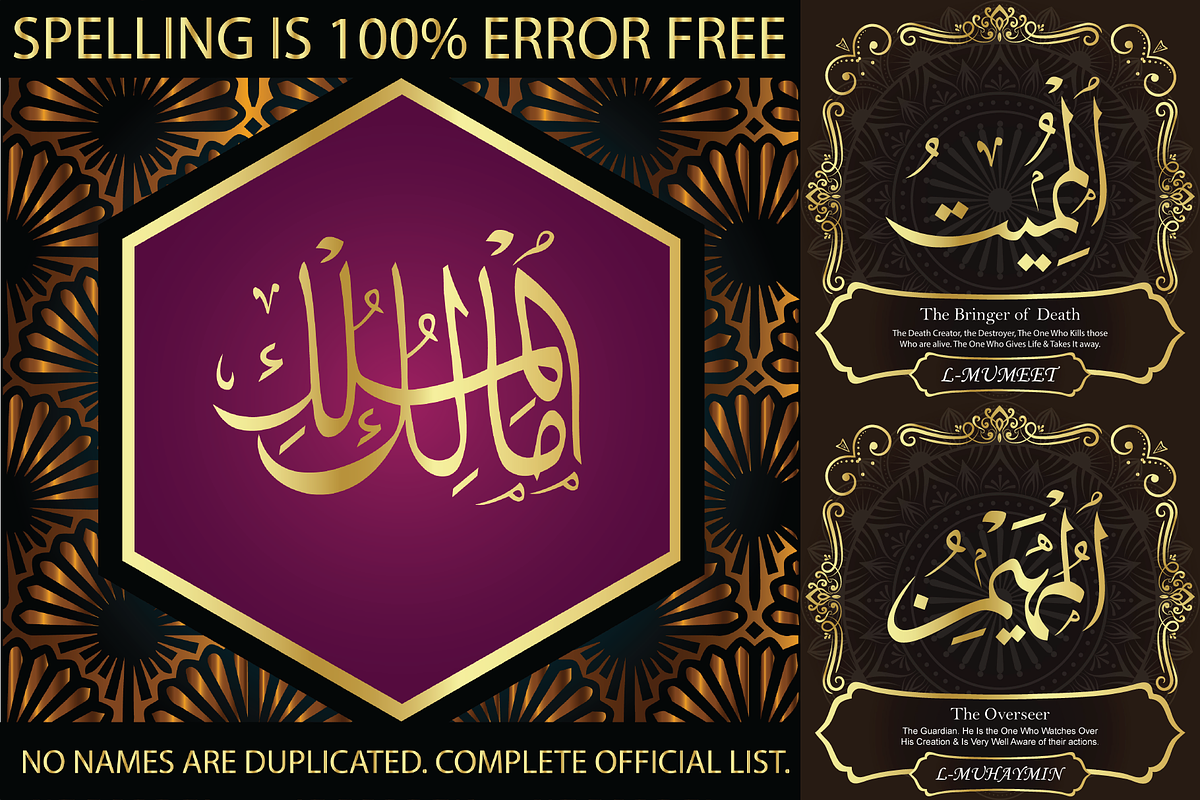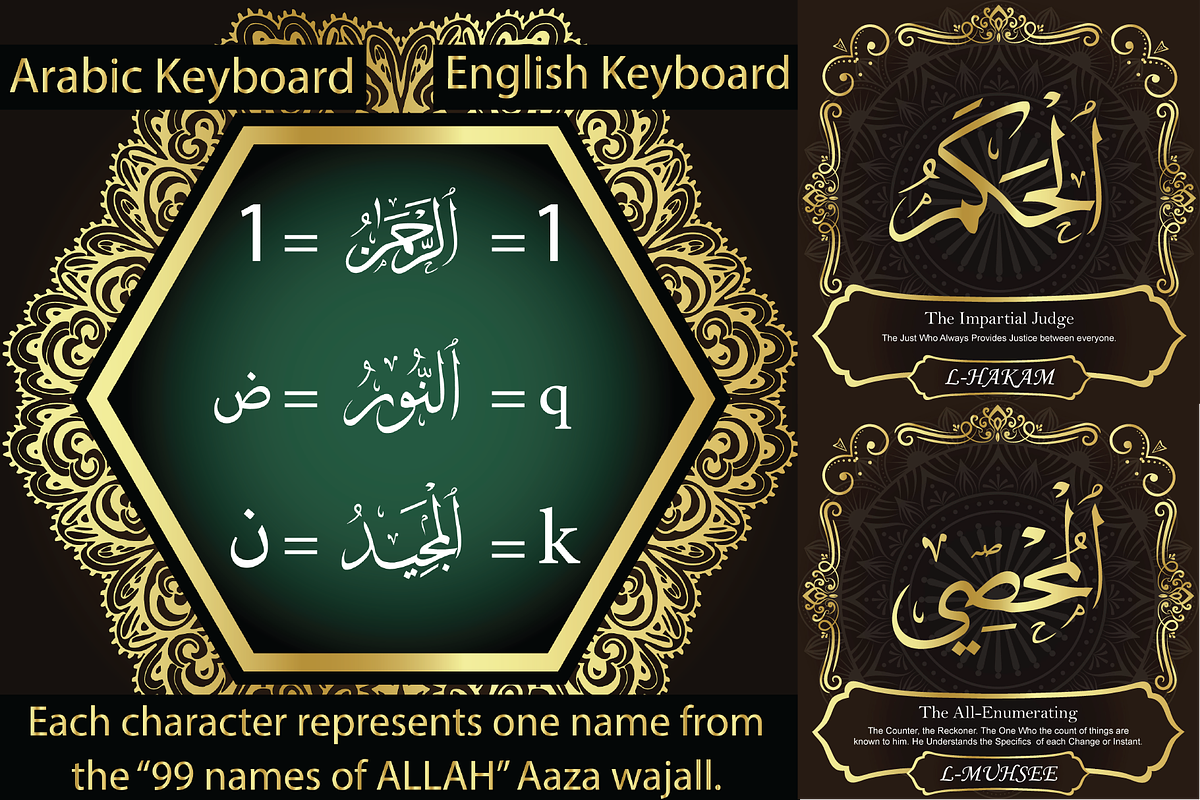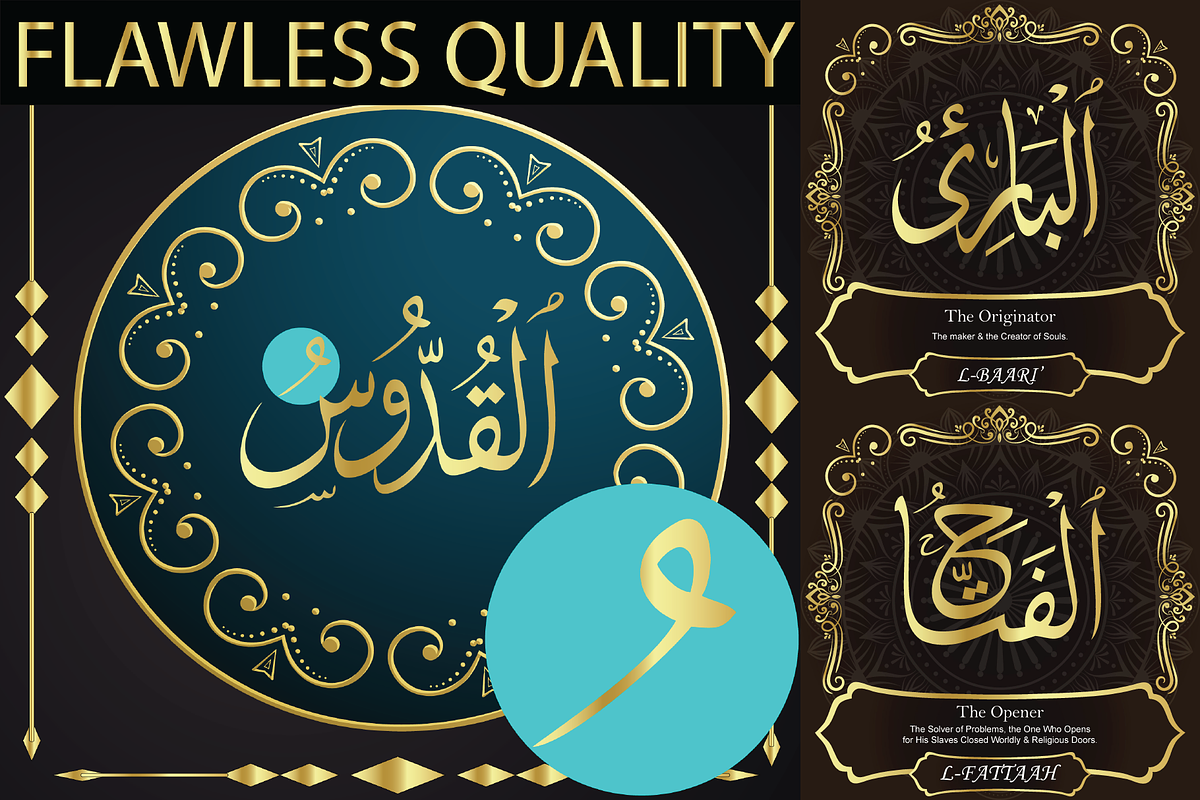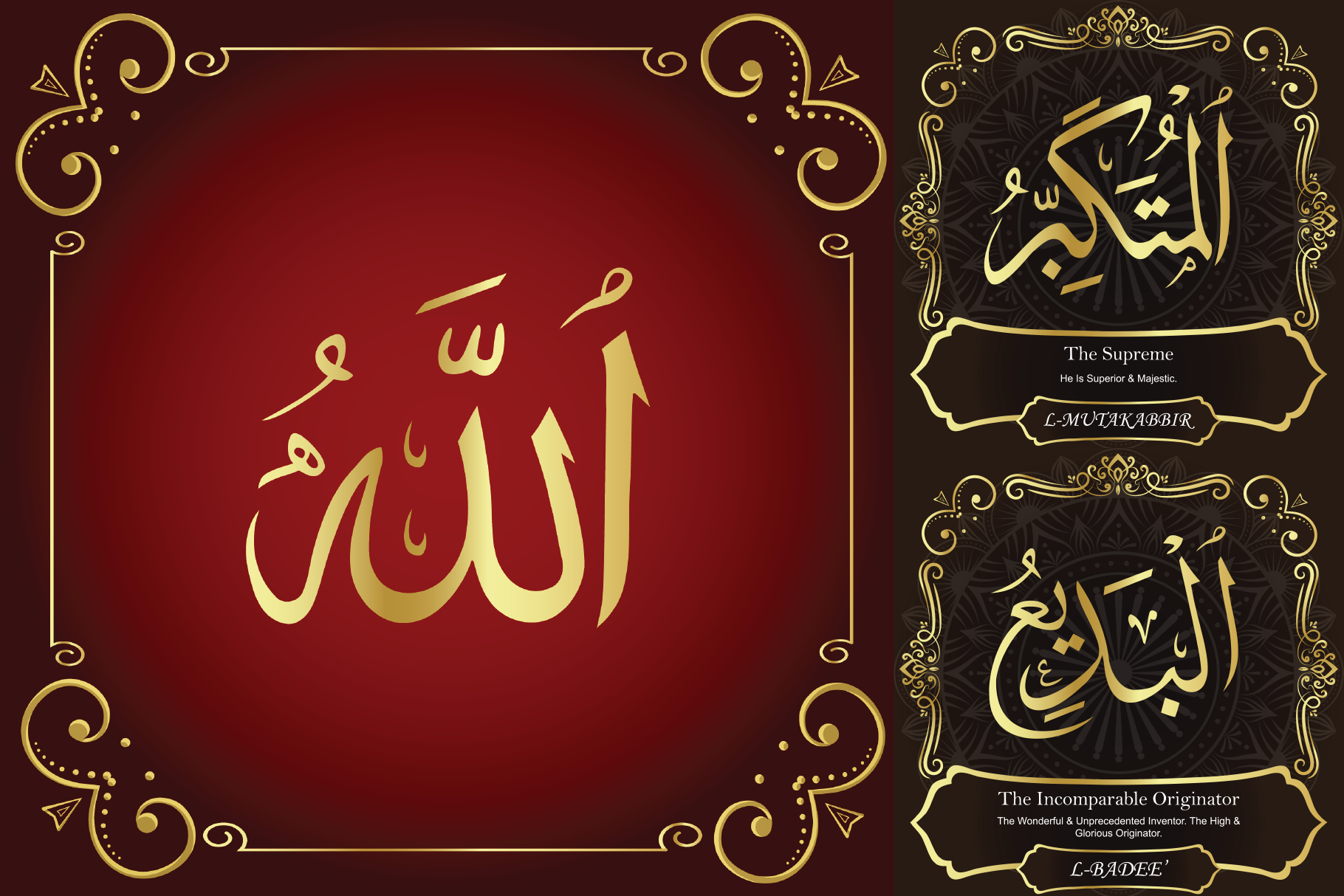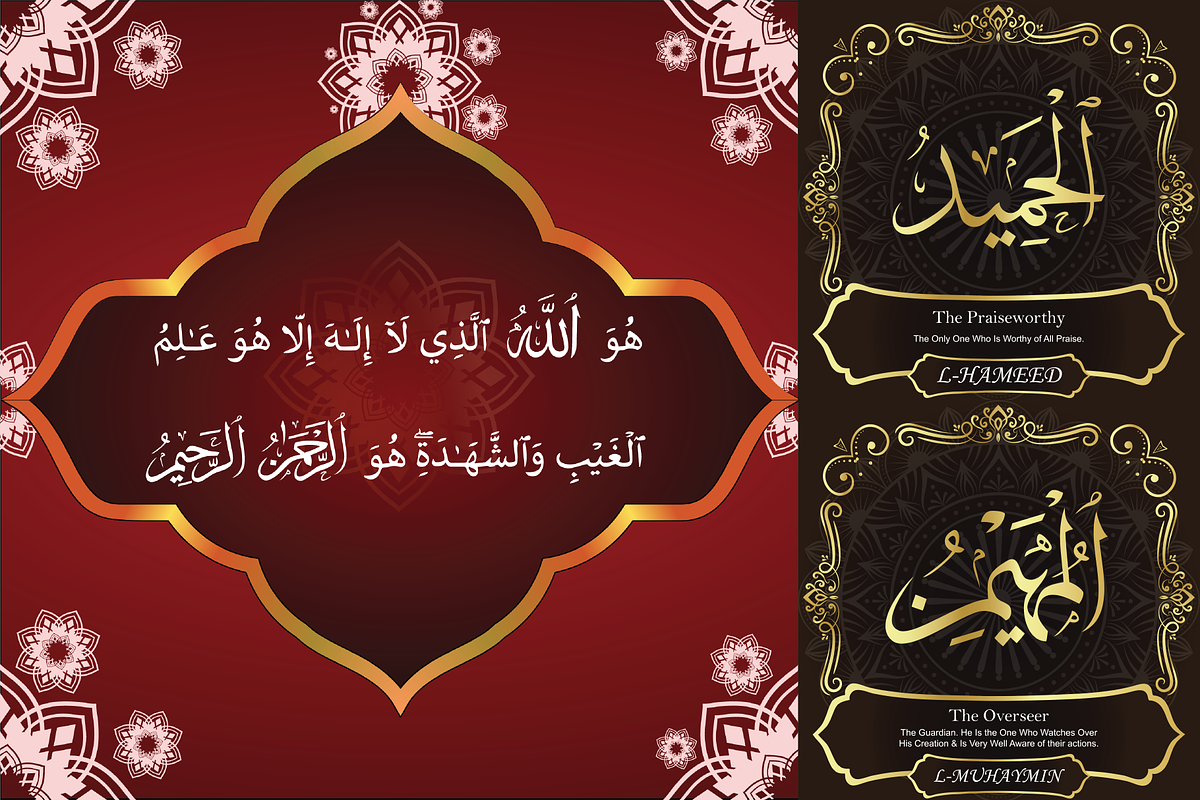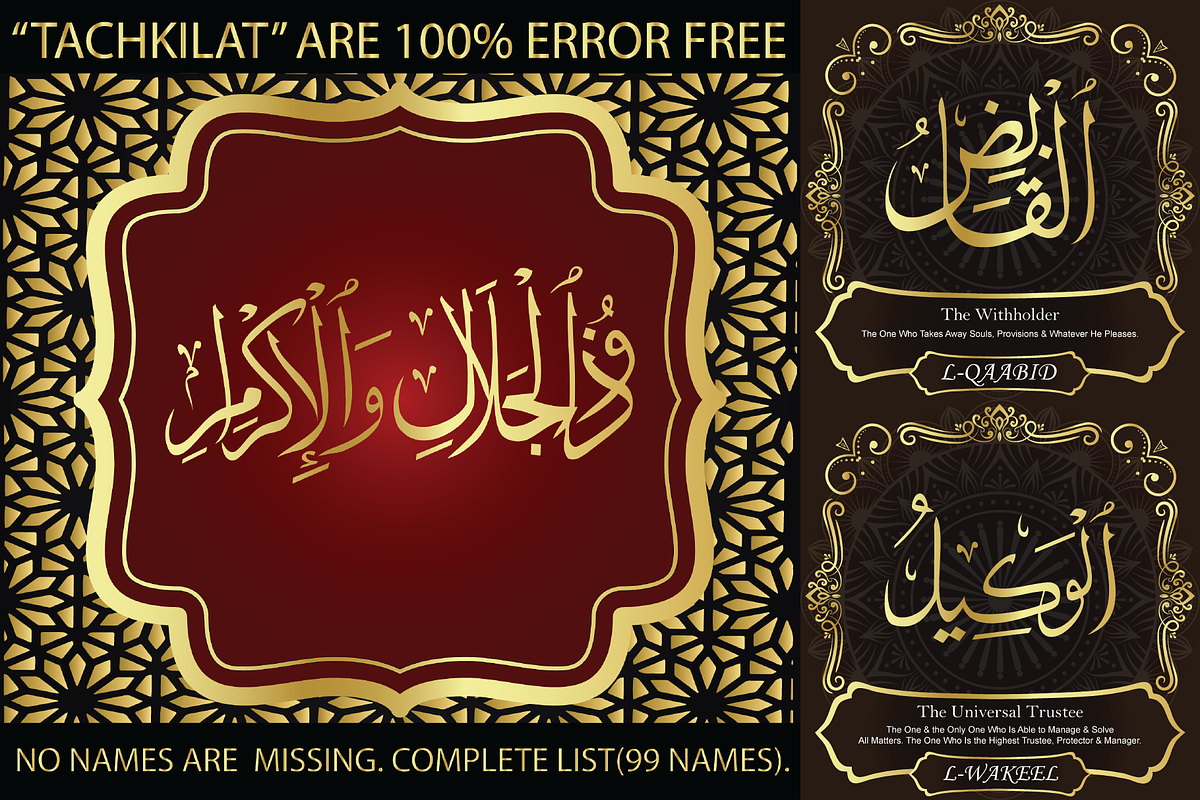
99 Names of ALLAH "Minimal" Font
We have transformed the “99 names of ALLAH” into a font. That means each key on your keyboard represents 1 of the 99 names of ALLAH Aaza Wajal. The fonts work with both the English and Arabic Keyboards.
We call this Calligraphy "Minimal" because of the minimal decoration and simplistic design. The first "Alef" has a "hamzit wasel", this indicates that the name can be pronounced both as "AR-RAHMAAN" or "R-RAHMAN" (in the zip file you will find a pdf file explaining the differences in the "harakat", pronunciation and spelling according to the Holy Quran). This calligraphy is not only minimal in its design but easy to read, very few letters overlaps and the decorative symbols are at minimum. In this Quranic format the name "ALLAH" doesn't have a small alef on the "chaddeh". And even though we haven't included a small "alef" as part of the decorative letters, we decided to add one to the best of names "ALLAH". This is not an error, nor it is a mistake. We consider the small “alef” on the name "ALLAH" to be part of the decorative design just like the small letters & symbols you see in the names. And to indicate that it is part of the design you will notice the "alef" on "AR-RAHMAAN" is slightly bigger than on the name "ALLAH". Decorative letters used in this calligraphy: "Mim, Aain, Sin, HHe, He, Saad & Kaf".
Purpose & use:
- Writers: Highlight the names in your texts in beautiful Islamic calligraphy.
- Editors: Use with kinetic typography templates (AE) & editing software.
- Designers: The very small details in the names does not affect the quality. Rest assured it is flawless.
The MOST IMPORTANT THING about this list is that all the names are 100% ERROR FREE, and you can USE THEM WITH YOUR EYES CLOSED. All the “Tachkilat” are 100% ERROR FREE, all the "Spelling" is 100% ERROR FREE, and they all have been written in accordance with the Holy Quran. No names are missing and no names are duplicated. The list is complete "99 names +1". The +1 is the name “ALLAH” 'Aza wajal.
Another important thing is how we use the decorative letters. In every font you will see small decorative letters, these letters are used only in accordance with their respective letters to indicate pronunciation & we don't include them randomly. That means "mim" on top or below the letter "mim", "sin" on top or below the letter "sin", and so on and so forth.